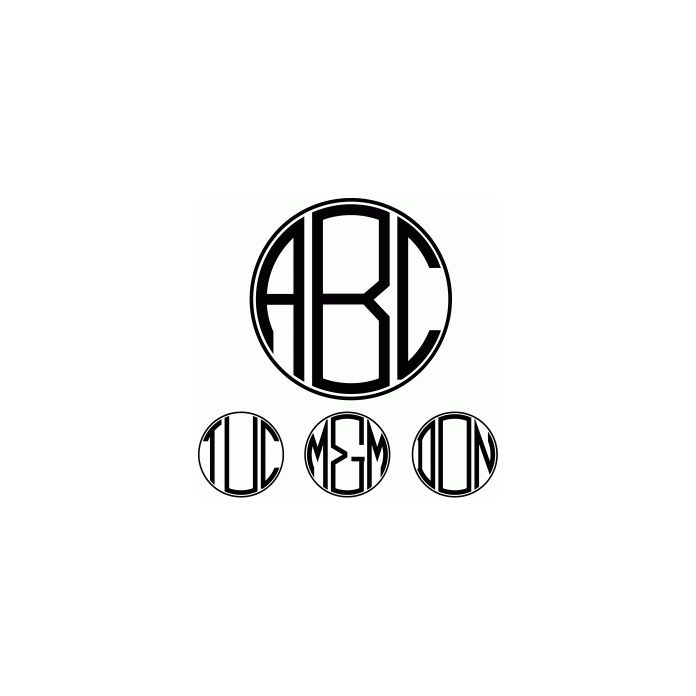
monogram ring font
Customize your own monogram with this Monogram font. You can use any letters and the font will place them inside the diamond design for you. IMPORTANT: I had to replace numbers and some punctuation with the last letter placement in order to make this font work. Please refer to this link for letter placement and key stroke information. http://rivkasrenditions.blogspot.com/2015/05/monogram-key-strokes.html